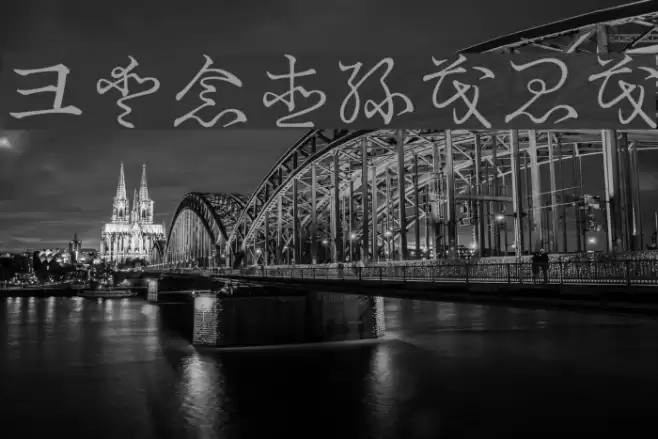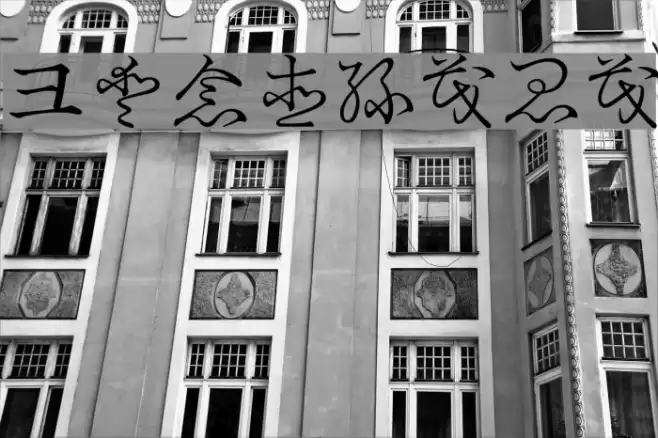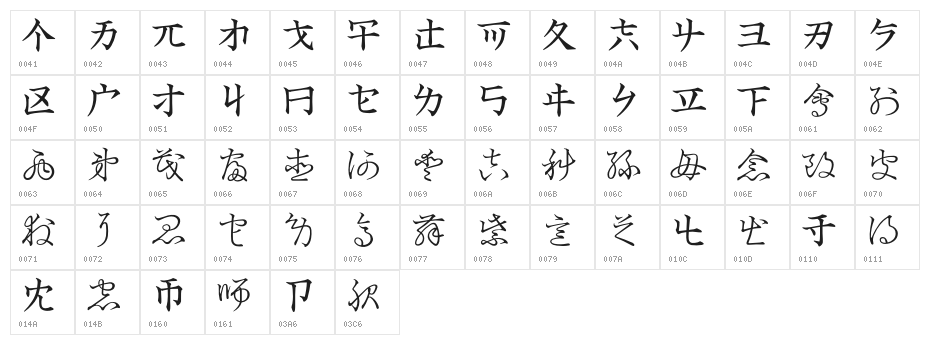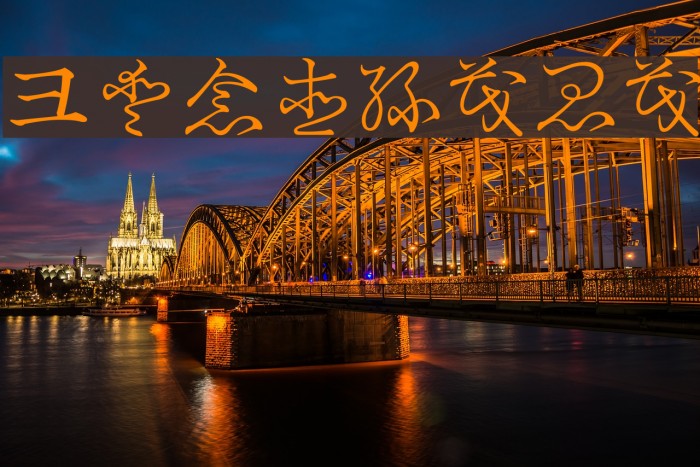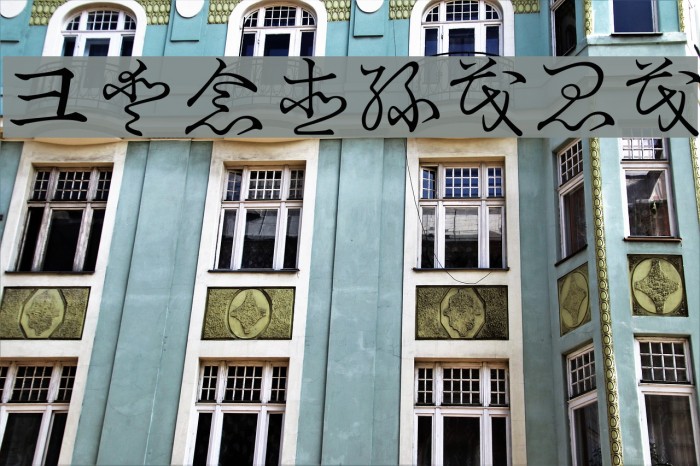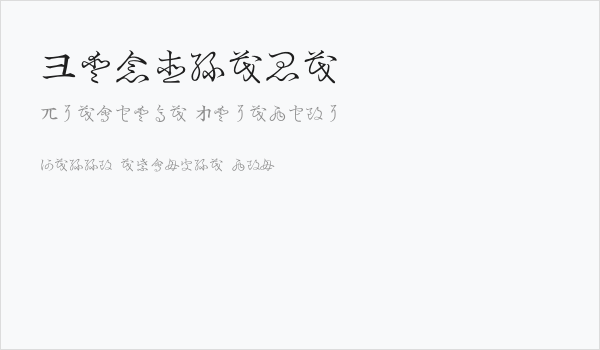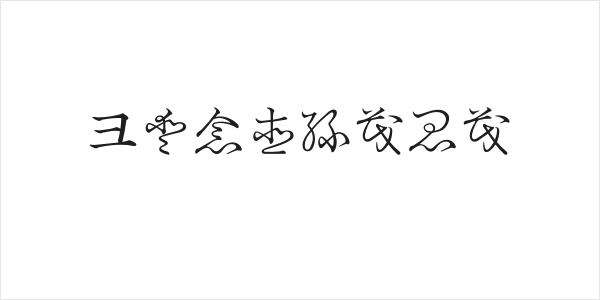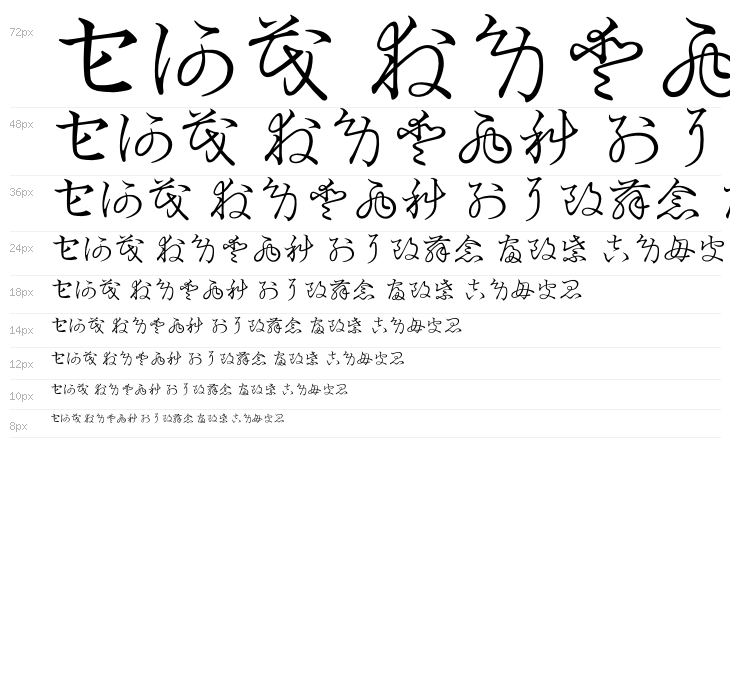
Linglese Font
Linglese Description
This font features a unique blend of traditional and modern elements, characterized by its elegant and flowing script style. The characters exhibit a calligraphic influence, with smooth curves and varying stroke widths that add a sense of movement and grace. The overall appearance is both sophisticated and approachable, making it suitable for a variety of design applications. The font maintains a consistent baseline, while the ascenders and descenders extend gracefully, enhancing its visual appeal. The spacing between characters is balanced, ensuring readability while preserving the artistic flair of the script.
An elegant script font with calligraphic influences and smooth, flowing curves from Uncategorized fonts.
- Proposed Projects: Ideal for wedding invitations, greeting cards, branding projects, and elegant packaging designs.
- Overall Style: Classic
- Use Case: Logos, Invitations, Decorative text